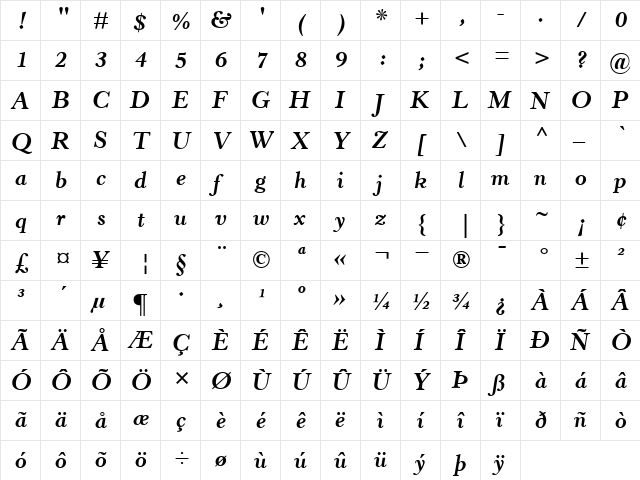
HorleyOldStyleMT BoldItalic Font Preview
Design Context for HorleyOldStyleMT Typeface
HorleyOldStyleMT brings classic typographic sensibility to the table — its serifs and measured letterforms reflect centuries of print heritage. The dynamic lean of this cut emphasises speed and emphasis in any layout. The heavy weight commands attention and anchors typographic hierarchies.
Pro Tip: Use HorleyOldStyleMT for editorial body copy and considered headline work. Pair with a neutral sans for UI elements or captions to create a classic hierarchy.